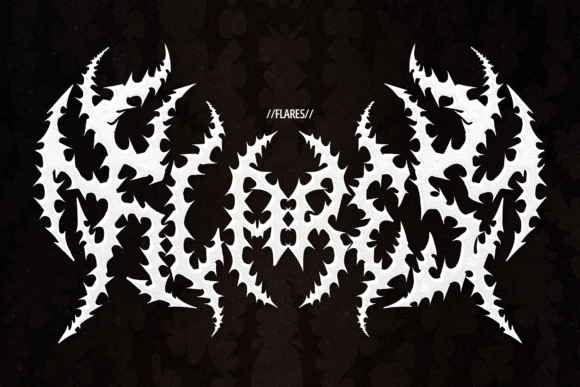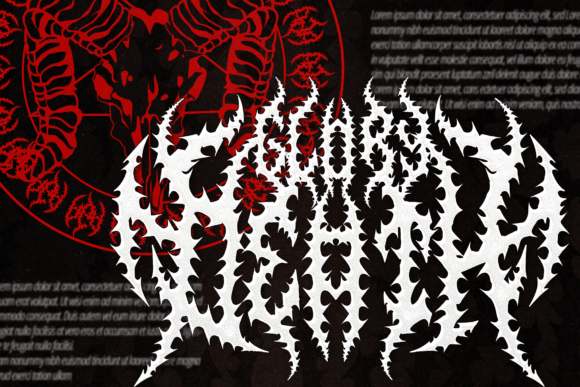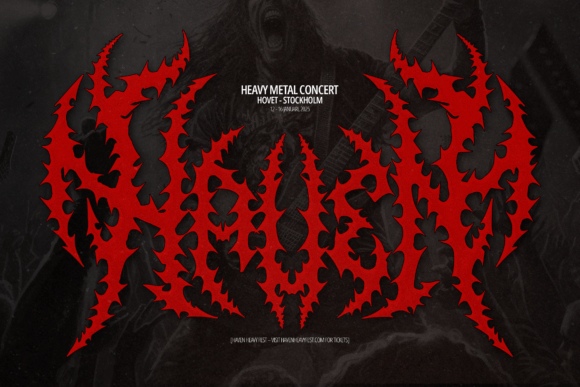
Introduction to Doxen Sunhera Font
As a designer, have you ever found yourself struggling to convey the raw energy and intensity of a metal band’s music? You’ve poured your heart into the project, but the font just doesn’t seem to capture the essence of the music. That’s where the Doxen Sunhera Font comes in – a brutal and chaotic death metal font designed to make a bold statement.
With its razor-sharp edges and intricate, thorn-like details, the Doxen Sunhera Font embodies the raw intensity of the metal genre. Whether you’re working on album covers, band logos, posters, or any other creative project, this font is the perfect design resource to elevate your work and make it stand out.
Key Features of Doxen Sunhera Font
- High-quality design resource suitable for creative projects, offering a unique and stylish touch.
- Features a transparent background, allowing for seamless integration with any design element.
- High-resolution design, suitable for both print and digital applications, ensuring crisp and clear text rendering.
- Unique, modern font style with a blend of elegance and sophistication, perfect for adding a touch of sophistication to any creative project.
Honest Review: Doxen Sunhera Font
As a designer, I’m always on the lookout for high-quality design resources that can elevate my creative projects. Recently, I had the chance to work with the Doxen Sunhera Font, and I must say, it’s been a game-changer.
Here are some of the things that I really love about this font: ✨
- Unique and modern design that adds a touch of sophistication to any project
- Highly legible and versatile, making it perfect for both digital and print designs
- Transparent background, making it easy to work with and customize
However, I do have a few reservations: ⚠️
- The font may not be suitable for projects that require a more traditional or classic look
- The font family is relatively small, which may limit its usage in complex designs
Overall, I’m thoroughly impressed with the Doxen Sunhera Font. Its unique design and high-quality features make it an excellent addition to any designer’s toolkit. Whether you’re working on a creative project or just need a reliable design resource, this font is definitely worth checking out.
Using in Creative Projects
The Doxen Sunhera Font is perfect for various creative projects, including logos, business cards, and posters. You can use it in conjunction with other design elements to create a unique and eye-catching visual identity.
To get the most out of the Doxen Sunhera Font, consider the following tips:
- Use a transparent background to create a sense of depth and visual interest.
- Experiment with different font sizes and styles to create a unique visual effect.
- Combine the Doxen Sunhera Font with other design elements to create a cohesive and professional look.
The Doxen Sunhera Font is commonly used in various design applications, including:
- Logos and branding materials.
- Business cards and letterheads.
- Posters and flyers.
Is the Doxen Sunhera Font suitable for use on a transparent background?
Yes, the Doxen Sunhera Font is designed to be used on a transparent background, making it perfect for designers who need a high-quality font with a transparent background for their creative project. The font’s design ensures that the text remains legible and clear even on a transparent background.